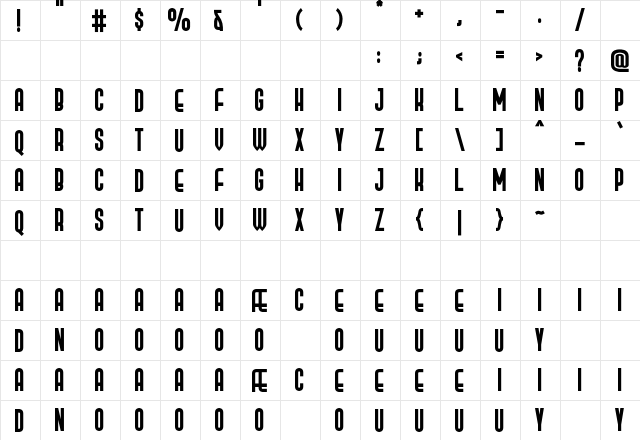
Prosa GT Demo Demo
| Foundry | Gartype Studio |
| Designer | Gumilang Anggara Ruslan |
Design Context for Prosa GT Demo Typeface
Prosa GT Demo takes a measured approach to typography — its balanced proportions and neutral character make it a reliable workhorse for both digital and print work.